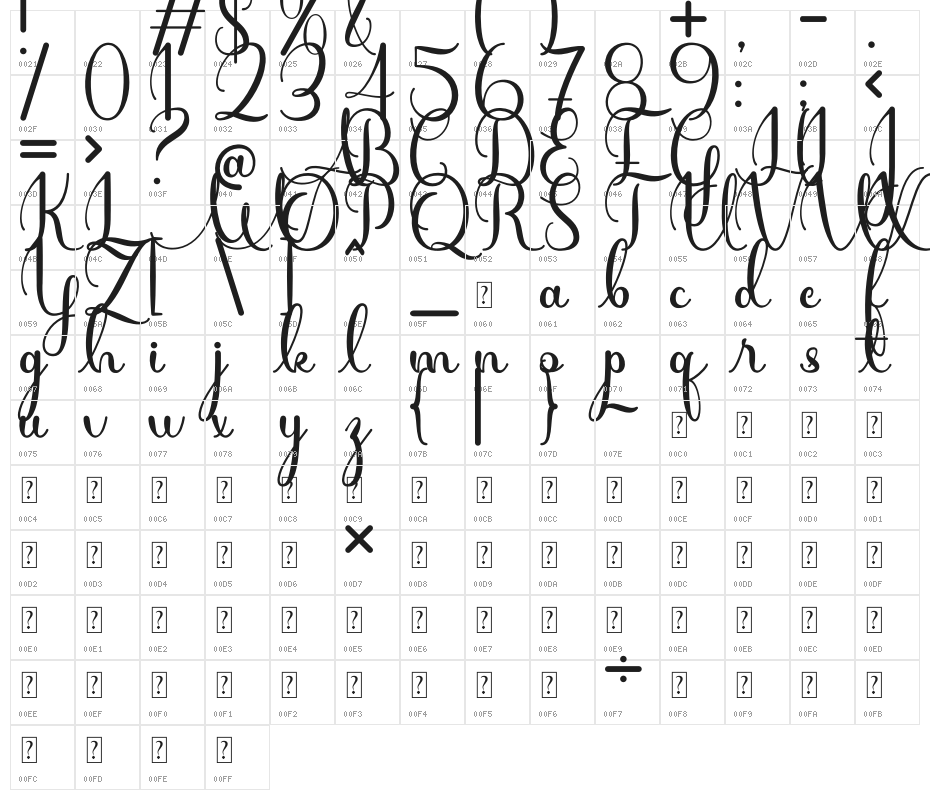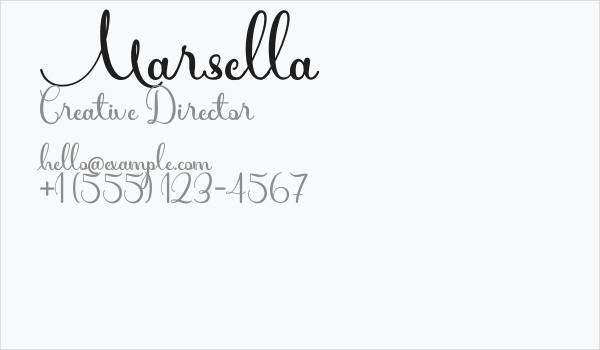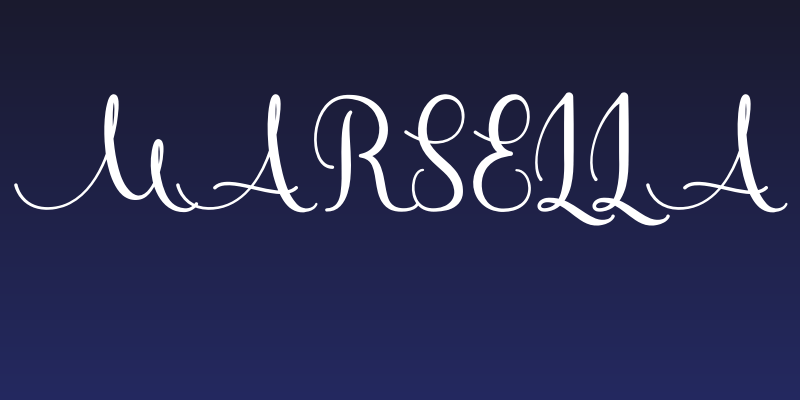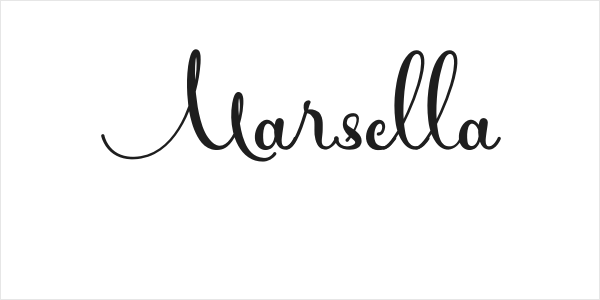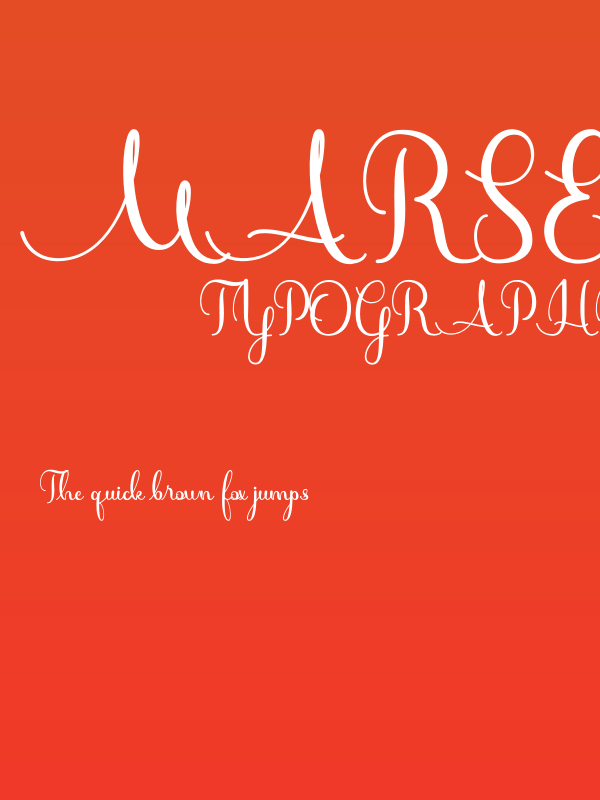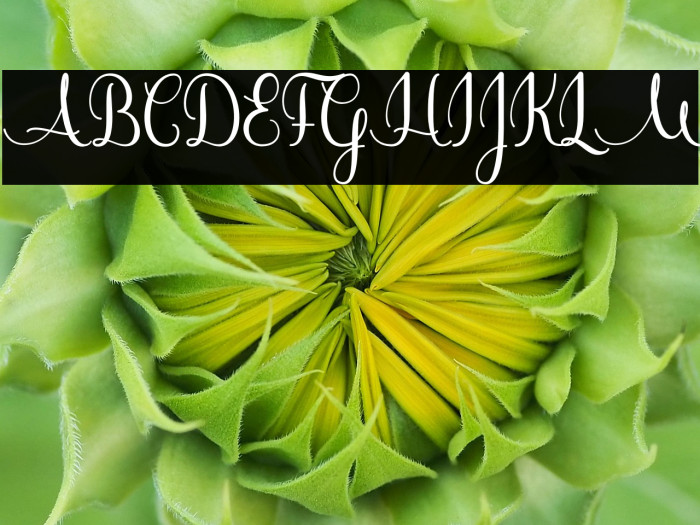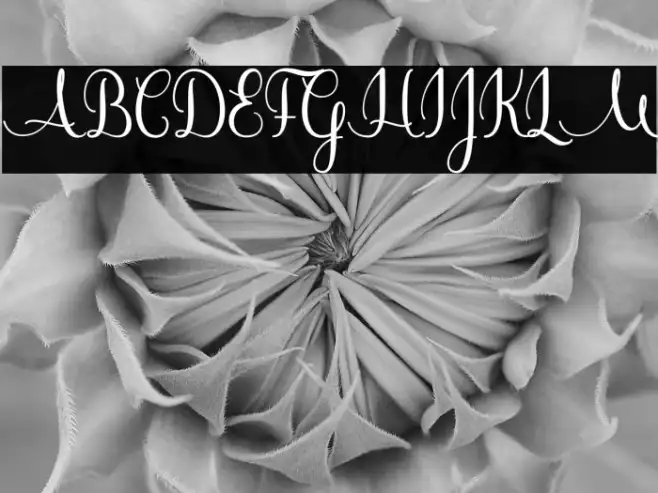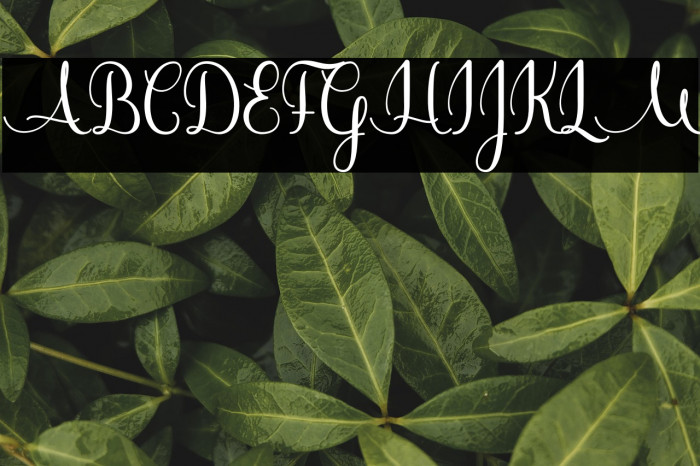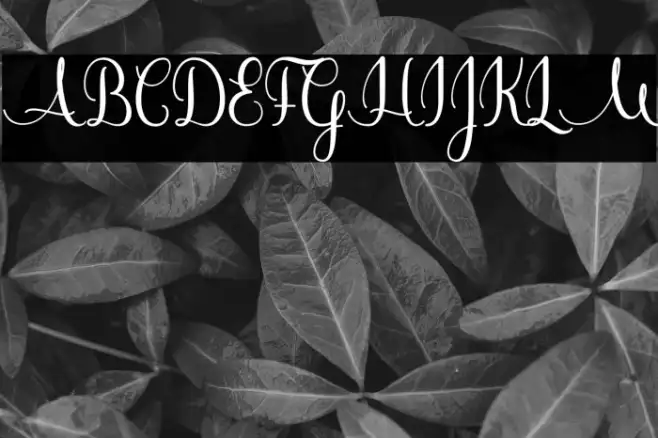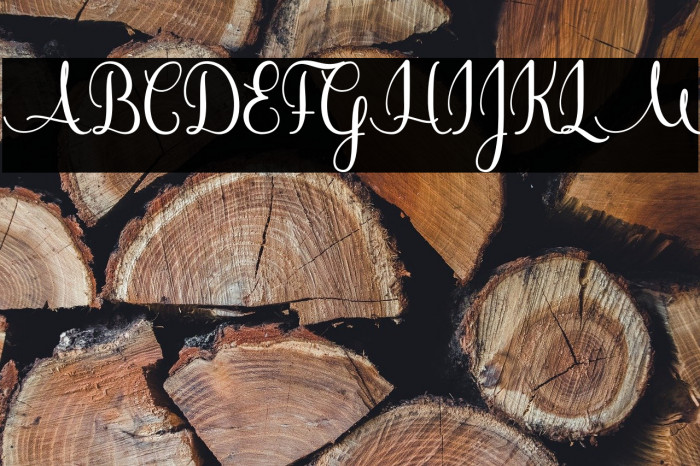
Marsella Font
Marsella Description
This elegant script font features flowing, cursive letterforms that exude sophistication and grace. The uppercase letters are characterized by their sweeping curves and delicate loops, creating a sense of fluidity and movement. The lowercase letters maintain a consistent style, with smooth connections and rounded forms that enhance readability. The numerals are designed with a similar flair, incorporating subtle curves that align with the overall aesthetic. Special characters are thoughtfully crafted to complement the script style, ensuring a cohesive look across all text. This font is ideal for projects that require a touch of elegance and refinement, such as wedding invitations, branding, and high-end product packaging.
| Overall Style | Elegant, Sophisticated |
| Use Case | Headlines, Invitations, Branding |
| Proposed Projects | Wedding invitations, branding, high-end product packaging, elegant stationery. |